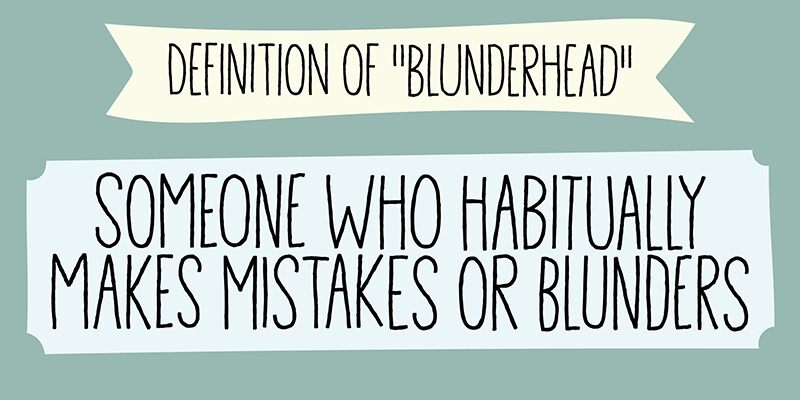
Blunderhead DEMO
Blunderhead font by Pizzadude is a handwritten, light, and condensed typeface with a hand-drawn appearance. It has a casual energy with an organic feel and modern applications in informal branding. Blunderhead features uneven baselines, relaxed aesthetics, and unique ligatures that give off a distinctive romantic yet straightforward style.
Being free to use, Blunderhead can serve many purposes including logo design, labels, apparel designs (t-shirts), posters and signage, invitation cards and weddings stationery items; it can also act as body text for short sections in websites or magazines.
The full version includes kerning and additional international characters, often featuring both ligatures, contextual alternates, and other appealing elements.